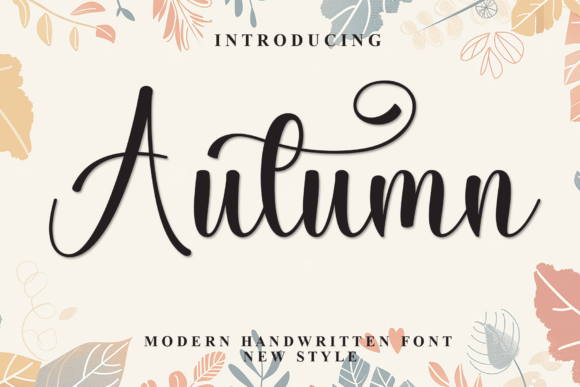
Discover the Delightful Autumn Font: A Perfect Blend of Sweetness and Quirkiness
As a designer, I’ve had my fair share of moments where finding the right font for a project seemed like an impossible task. I recall working on a wedding invitation project, determined to create something that would make the couple’s special day even more memorable. The brief was simple: elegant, yet playful; sophisticated, yet approachable. That’s when I stumbled upon the Autumn Font, a delightful handwritten font that instantly captured my heart.
With its amiable and charming penmanship, Autumn Font breathed life into my design, elevating it from ordinary to extraordinary. The font’s unique blend of sweetness and quirkiness made it an instant hit with my clients, and I’ve been hooked ever since. In this article, I’ll share my experience with Autumn Font, its features, and how to make the most of it in your designs.
An Honest Review of Autumn Font
• ✨ Unique and charming handwritten style that adds a personal touch to any design
• ✅ Perfect balance of sweetness and quirkiness, making it suitable for various design projects
• 💫 Excellent for wedding invitations, greeting cards, and other creative ventures that require a playful touch
• 🎉 Easy to read and understand, even in small font sizes
While Autumn Font is an excellent choice for many design projects, there are a few things to keep in mind:
• ⚠️ Limited availability of stylistic alternates, which might restrict design flexibility
• 🤔 May not be the best choice for body text or lengthy content, as its handwritten nature can be tiring to read in large blocks
The Story Behind Autumn Font
Autumn Font was designed with the intention of creating a unique and charming handwritten font that would add a personal touch to any design. The designer aimed to strike a perfect balance between sweetness and quirkiness, making it suitable for various design projects, from wedding invitations to greeting cards.
Q: What makes Autumn Font unique?
A: Autumn Font’s unique blend of sweetness and quirkiness makes it stand out from other fonts. Its charming handwritten style and excellent readability make it perfect for various design projects.
Q: Is Autumn Font suitable for body text?
A: While Autumn Font is an excellent choice for headings and titles, it may not be the best choice for body text or lengthy content, as its handwritten nature can be tiring to read in large blocks.